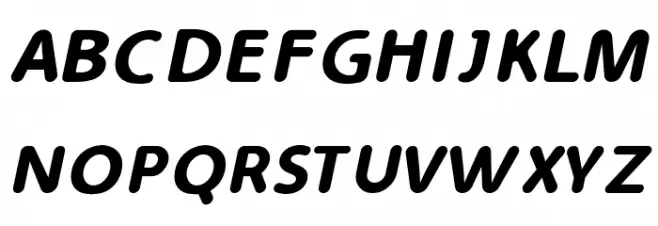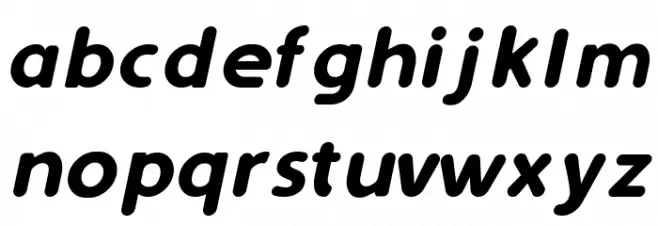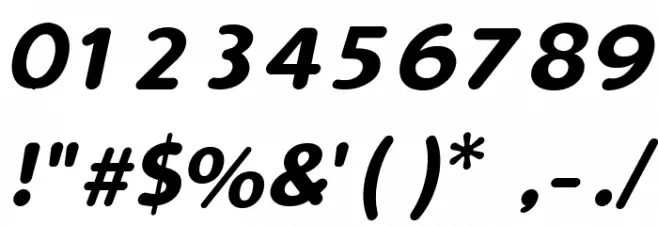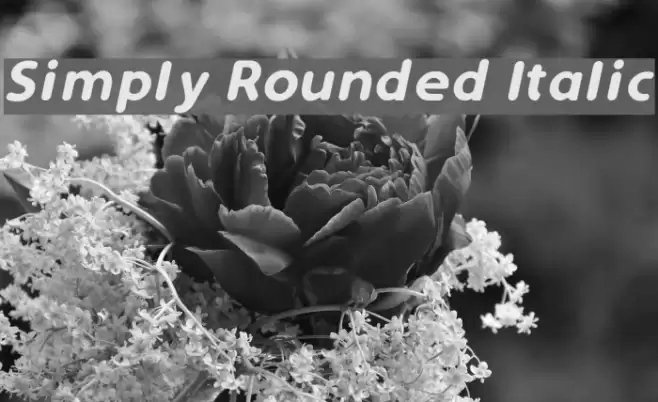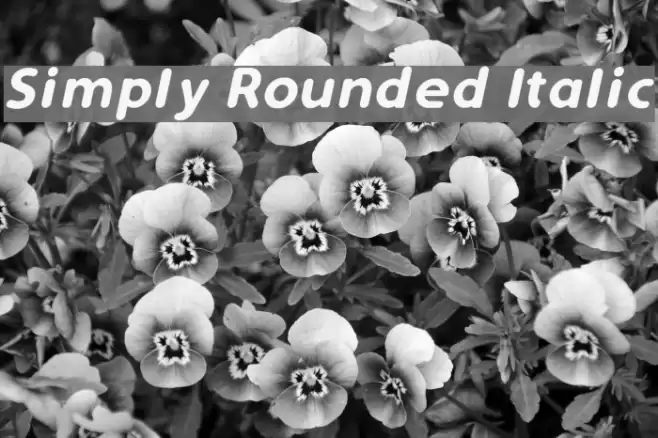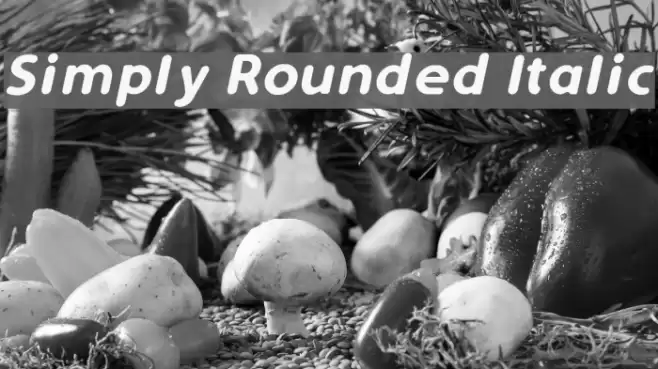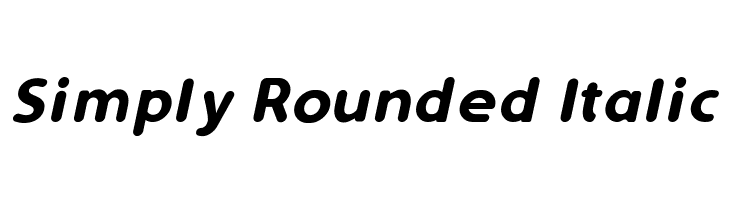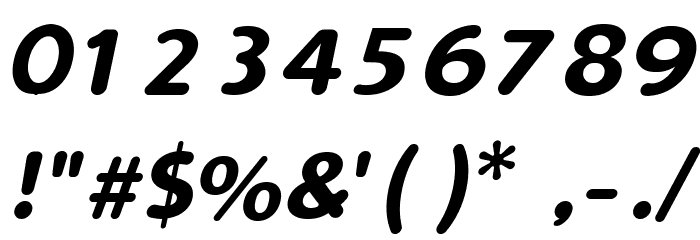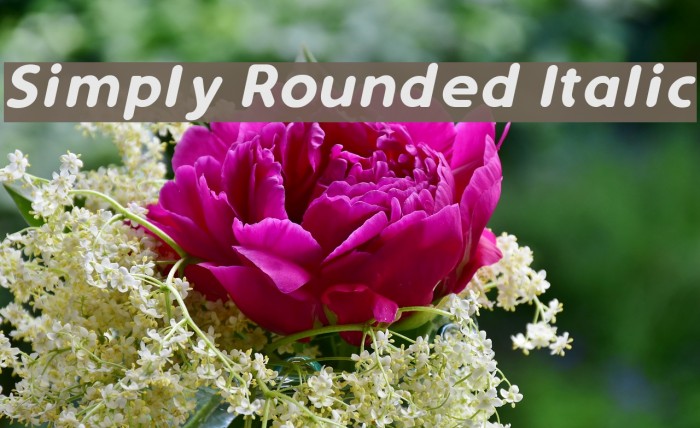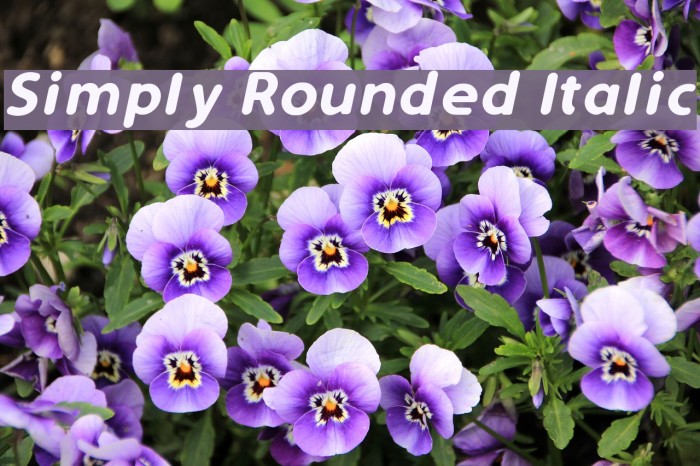
Simply Rounded Italic
This font features a smooth, rounded design with a consistent italic slant, giving it a modern and approachable appearance. The characters are evenly spaced, with a slight emphasis on curves, which adds to its friendly and informal style. The uppercase and lowercase letters maintain a uniform stroke width, contributing to a clean and cohesive look. The numerals and special characters are designed to match the overall aesthetic, ensuring readability and visual harmony. This font's simplicity and elegance make it versatile for various design applications.
A modern, rounded italic font with a friendly and approachable style.
- Proposed Projects: Ideal for branding, advertising, product packaging, and digital content where a modern and friendly tone is desired.
- Use Case: Headlines, Logos, Branding